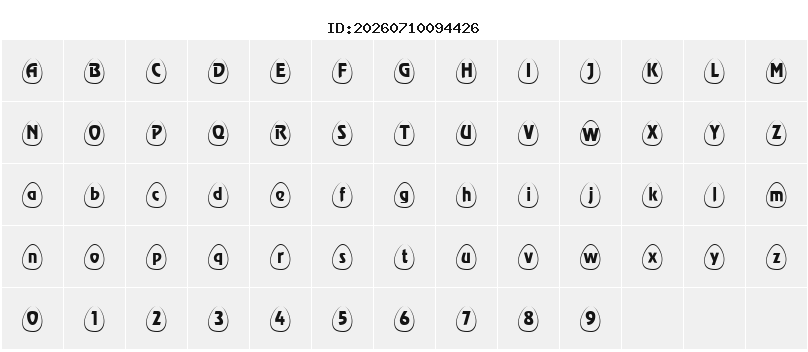
EggsWhite Becker Preview
• Font Name: EggsWhite Becker
• Full Font Name: EggsWhite Becker
About EggsWhite Becker.ttf
EggsWhite Becker.ttf is a modern, elegant sans-serif font designed for ultimate readability and visual harmony. Perfect for branding, headlines, web design, and print materials.